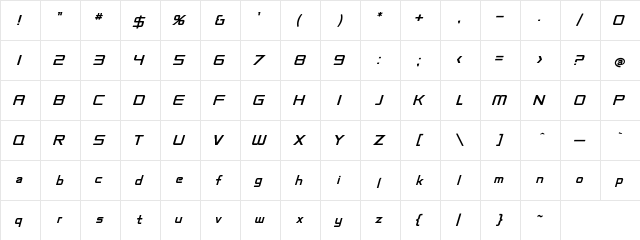
Indy_Archeologist Regular Font Preview
Indy_Archeologist Regular
Design Context for Indy_Archeologist Typeface
Indy_Archeologist is a composed and adaptable typeface that performs quietly and consistently across a wide range of design contexts.